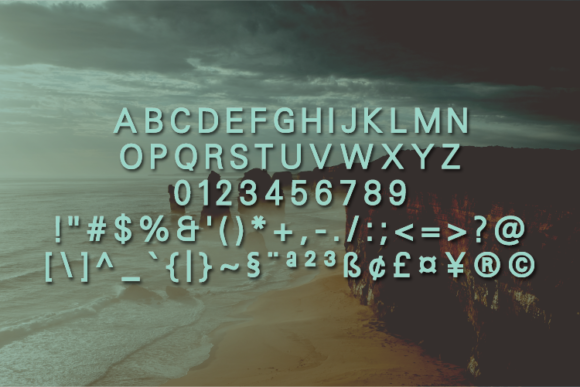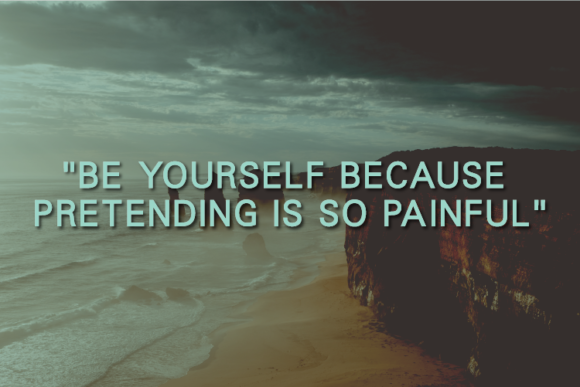
Introduction to Elthopela Font
Have you ever stared at a blank canvas, itching to bring a concept to life but struggling to find the right visual language? That’s exactly where I was when I stumbled upon the Elthopela Font. Its clean, bold lines and futuristic vibe instantly sparked a creative fire within me. I knew right then that this font was going to be a game-changer for my next design project.
As a designer, you understand the importance of a high-quality font in elevating your creative work. Whether you’re working on a personal project or a client’s brief, the right font can make all the difference. The Elthopela Font is not just any font – it’s a design resource that offers a transparent background, making it perfect for any creative project that requires a bold and modern touch.
What sets Elthopela apart is its versatility and accessibility. This free download is available to anyone, making it an excellent addition to any designer’s toolkit. In this article, we’ll dive into the world of Elthopela Font and explore why it’s a valuable asset for designers looking to take their work to the next level.
Key Features of Elthopela Font
- High-quality, unique design suitable for creative projects
- Transparent background, ideal for use on images and designs with varied backgrounds
- Pixel-perfect at 300 DPI, ensuring crisp and clear text display
- Customizable and versatile, suitable for various design applications and styles
Honest Review: Elthopela Font
I recently had the opportunity to experiment with the Elthopela Font, and I must say it’s a great addition to any design resource. With its high-quality glyphs and elegant design, it’s perfect for a creative project that requires a touch of sophistication.
The font’s transparent background allows for seamless integration with various backgrounds, making it a versatile choice for designers. One of the standout features of the Elthopela Font is its wide range of styles, from bold to light, which makes it easy to find the perfect fit for your design needs.
- High-quality glyphs for a professional look
- Wide range of styles to suit various design needs
- May not be suitable for very small font sizes due to its elegant design
- Not as many language support options as some other fonts
Overall, I’m impressed with the Elthopela Font’s potential and versatility. It’s a great choice for designers looking to add a touch of elegance to their creative projects. With some minor limitations in mind, I would highly recommend giving it a try, especially since it’s available for free download.
Tips for Getting the Most Out of Elthopela Font
For a high-quality design, use the Elthopela Font in conjunction with a transparent background to create a clean and modern look. Experiment with different font sizes and colors to add depth and visual interest to your design. As a free download, Elthopela Font is a valuable design resource for any creative project.
Elthopela Font is suitable for a variety of design projects, including logos, brochures, business cards, and social media graphics. Its unique style and versatility make it an ideal choice for designers looking to add a touch of creativity to their work.
Yes, the Elthopela Font has a transparent background, making it easy to use in various design scenarios, from creating custom logos to designing digital interfaces. This feature allows you to combine the font with other design elements seamlessly, giving you more creative freedom.